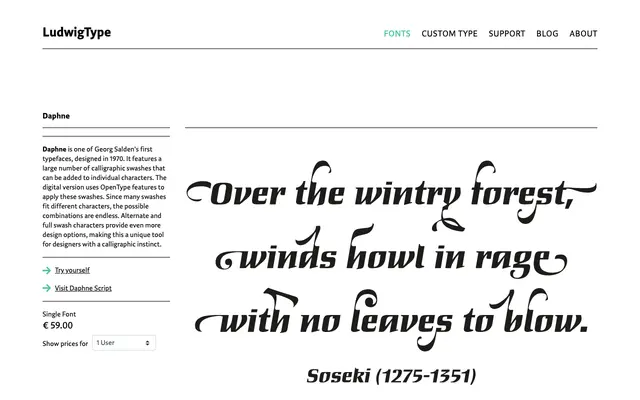
Daphne
A transitional serif from Ludwig with classical proportions suited to editorial and long-form text work.
Daphne is a serif typeface from Ludwig that draws on transitional conventions, balancing moderate stroke contrast with clean, contemporary finishing. The family covers core weights with matching italics, making it a functional choice for editorial and book typography. Its restrained approach keeps it versatile across both print and screen contexts.
Daphne appears to be a refined serif in the transitional vein, typical of Ludwig's output, combining classical stroke contrast with contemporary detailing.